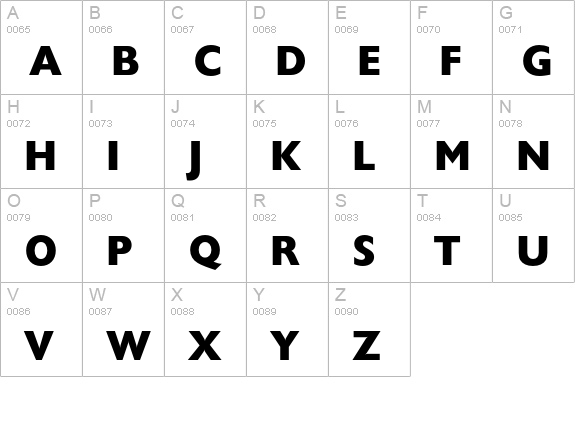
Chantilly-ExtraBold is an extra-heavy, attention-grabbing variant in the Chantilly typeface family \xE2\x80\x94 well suited to high-impact headlines, posters, and bold branding.
Chantilly-ExtraBold is a bold and striking font that exudes confidence and power. With its thick, robust letterforms, this typeface commands attention and makes a bold statement in any design project. Perfect for headlines, posters, and branding materials, Chantilly-ExtraBold adds a touch of modern sophistication to any design. What sets Chantilly-ExtraBold apart is that it is not only visually impactful but also freely available to download at FontsMarket.com. This means that designers and creatives can easily access this dynamic font without any cost, making it a valuable resource for anyone looking to make a strong visual impact with their projects. Don't miss out on the opportunity to enhance your designs with the bold and powerful Chantilly-ExtraBold font today!